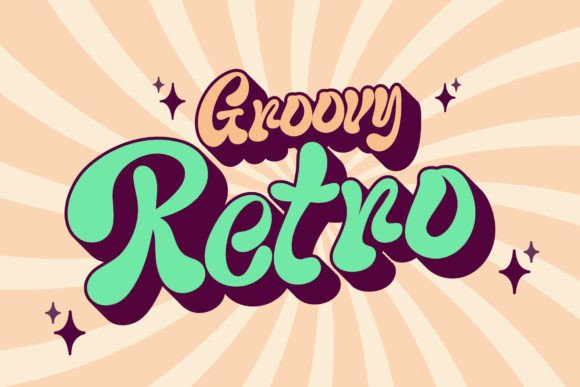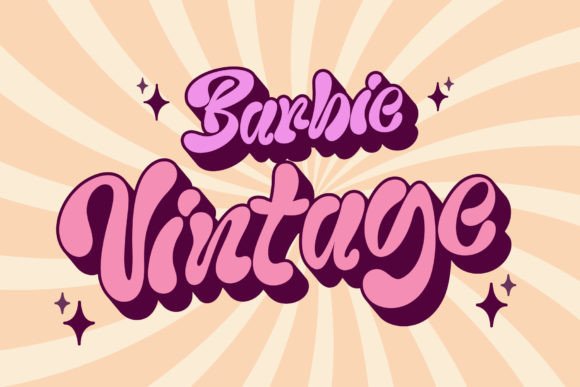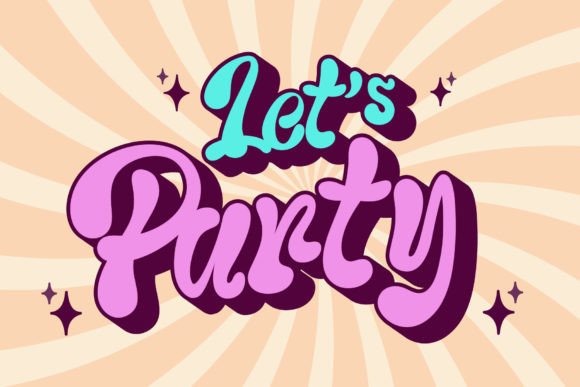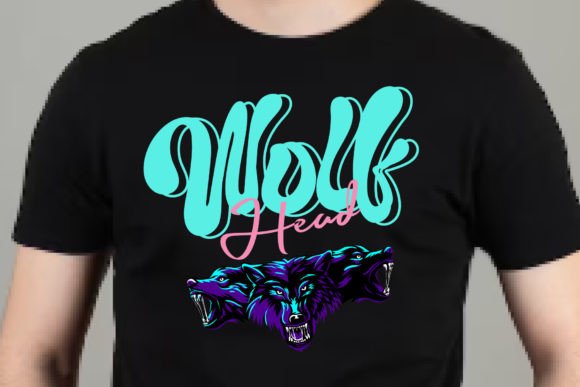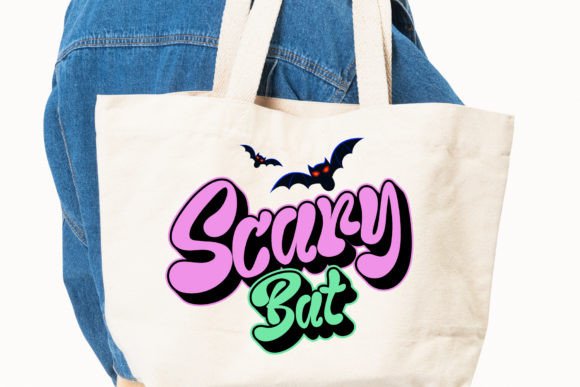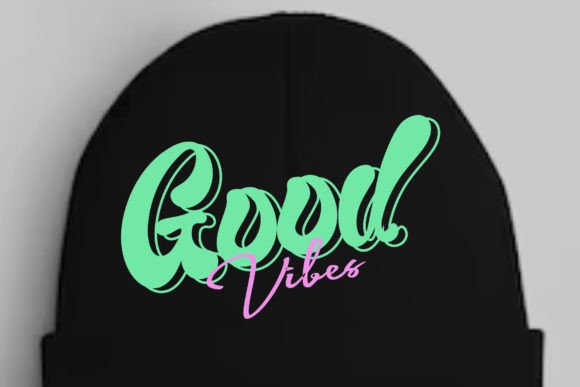
Introducing Classic Night Font: The Ultimate Retro Display Font
Are you looking for a font that screams retro style and grabs attention instantly? Look no further than Classic Night Font! This groovy display font is perfect for designers and crafters who want to add a touch of nostalgia and youthfulness to their projects. In this article, we’ll dive into the features and benefits of Classic Night Font, and explore its endless possibilities for various design applications.
What is Classic Night Font?
Classic Night Font is a carefully crafted display font that embodies the spirit of retro style. Its unique and distinctive design makes it instantly recognizable, perfect for projects that require a bold and eye-catching look. Whether you’re working on a comic book layout, online game, or social media post, Classic Night Font is sure to turn heads.
Key Features of Classic Night Font
- Retro Style: Classic Night Font boasts a classic retro style that’s reminiscent of the good old days. Its nostalgic vibe is perfect for designers who want to evoke a sense of nostalgia in their projects.
- Groovy Design: The font’s groovy design makes it perfect for projects that require a bold and playful look. Its unique curves and lines add a touch of whimsy to any design.
- Attention-Grabbing: Classic Night Font is designed to grab attention. Its bold and eye-catching design makes it perfect for projects that require a statement piece.
- Versatile: This font is versatile and can be used for a wide range of design applications, from comic book layouts to social media posts.
Design Applications for Classic Night Font
Classic Night Font is perfect for a variety of design applications, including:
- Comic Book Layouts: Add a touch of nostalgia to your comic book layouts with Classic Night Font. Its retro style and groovy design make it perfect for comic book titles, headings, and captions.
- Online Games: Give your online games a retro twist with Classic Night Font. Use it for game titles, buttons, and other UI elements to create a nostalgic gaming experience.
- Cards and Posters: Create eye-catching cards and posters with Classic Night Font. Its bold and playful design makes it perfect for greeting cards, invitations, and promotional posters.
- Merchandise: Use Classic Night Font to create stunning merchandise, such as t-shirts, hats, bags, and mugs. Its unique design will make your merchandise stand out from the crowd.
- Movie Titles and Credits: Add a touch of nostalgia to your movie titles and credits with Classic Night Font. Its retro style and groovy design make it perfect for film titles, credits, and promotional materials.
- Social Media Posts: Create eye-catching social media posts with Classic Night Font. Its bold and playful design makes it perfect for social media graphics, headings, and captions.
Why Choose Classic Night Font?
There are many reasons why Classic Night Font stands out from the rest. Here are a few:
- Unique Design: Classic Night Font has a unique and distinctive design that sets it apart from other fonts.
- Easy to Read: Despite its bold and playful design, Classic Night Font is easy to read, making it perfect for body text and captions.
- High-Quality: Classic Night Font is a high-quality font that’s designed to deliver exceptional results.
In conclusion, Classic Night Font is a groovy display font that’s perfect for designers and crafters who want to add a touch of nostalgia and youthfulness to their projects. Its retro style, groovy design, and attention-grabbing features make it perfect for a wide range of design applications. Whether you’re working on a comic book layout, online game, or social media post, Classic Night Font is sure to turn heads. So why wait? Download Classic Night Font today and start creating stunning designs that will leave a lasting impression!